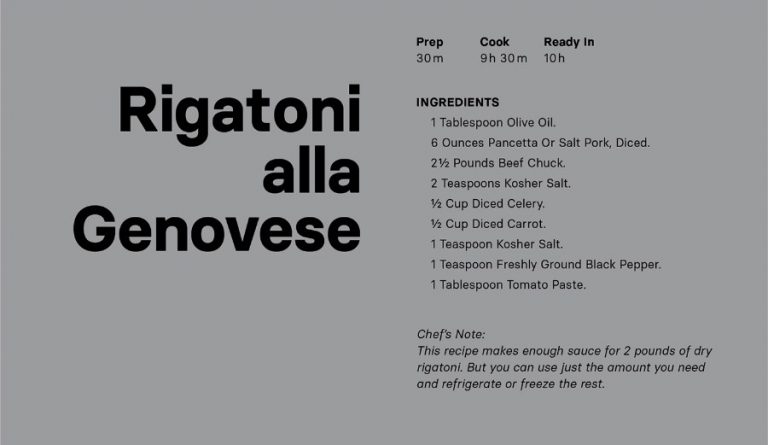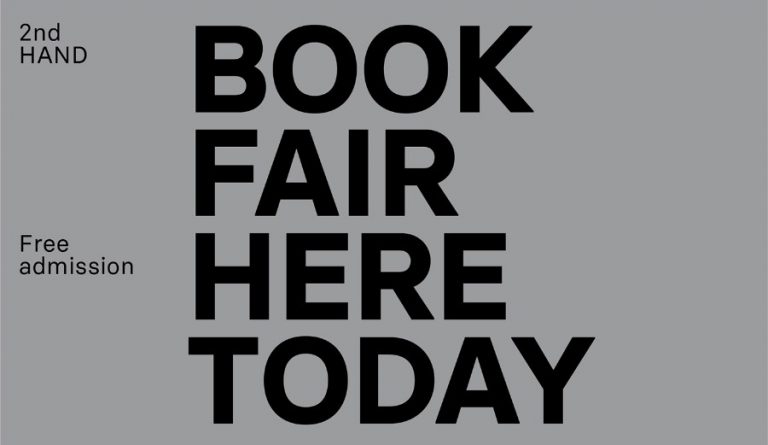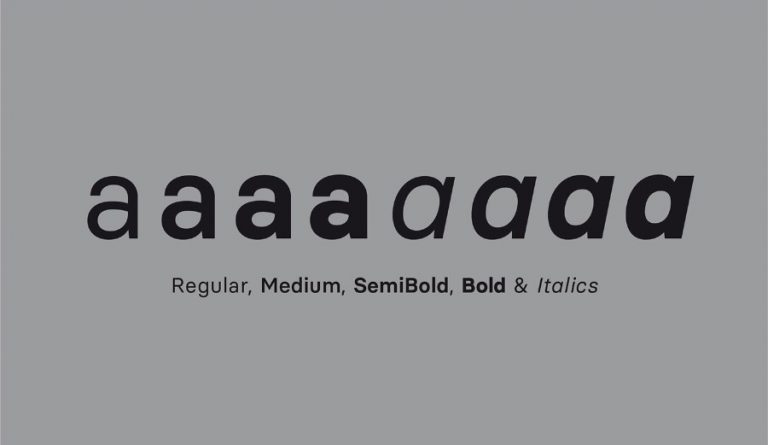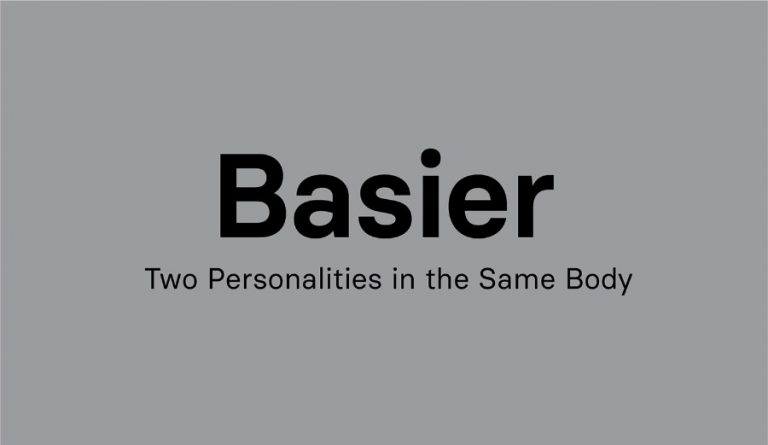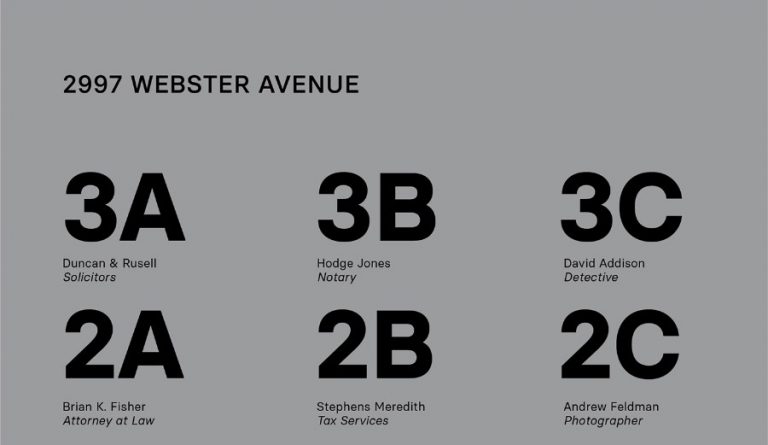
Basier Sans Font Family – Free Demo
Hello friend. This is a classic style sans serif typeface that has been modernised with its unique curves and cut-ins making it one of the most memorable caps fonts on the market. Introducing Basier Font! Basier Sans Font Family, inspired by the International Style, is a neo-grotesque sans serif typeface available in two variants, Circle & Square. The result is a modern and neutral font family that is ideally suited for logotypes, branding, editorial design as well as web and screen design.